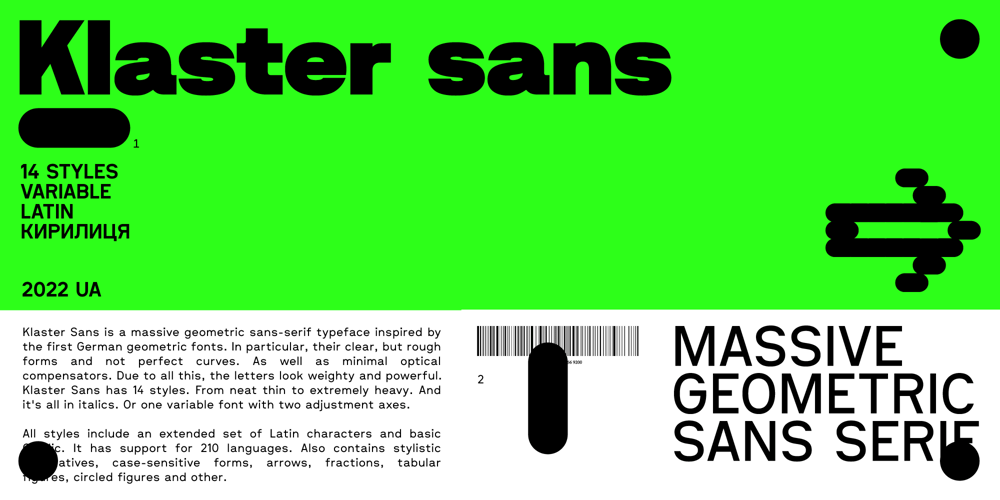
Klaster Sans Font Family was designed by Maksym Kobuzan and published by Kobuzan. Klaster Sans contains 15 styles and family package options. Klaster Sans is a massive geometric sans-serif typeface inspired by the first German geometric fonts. In particular, their clear, but rough forms and not perfect curves. As well as minimal optical compensators. Due to all this, the letters look weighty and powerful.Klaster Sans has 14 styles. From neat thin to extremely heavy. And it’s all in italics. Or one variable font with two adjustment axes.All styles include an extended set of Latin characters and basic Cyrillic. It has support for 210 languages. Also contains stylistic alternatives, case-sensitive forms, arrows, fractions, tabular figures, circled figures and other.Features:– Total glyph set: 657 glyphs;– 14 styles (7 weights x italic) + variable;– Support 210+ languages;– Latin Extended;– Cyrillic Basic;OpenType features:– Uppercase, lowercase;– Proportional, circled, tabular numerals, superiors, inferiors, fractions;– Punctuations and symbols;– Arrows;– Stylistic sets (ss01);– Ligatures;– Case-sensitive forms.